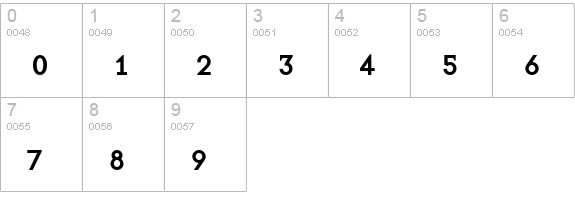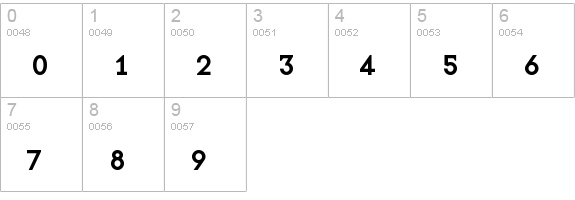
BaseTwelveSansSmallcaps Font Details
BaseTwelveSansSmallcaps font is a sleek and modern typeface that combines the elegance of small caps with a minimalist design. Its clean lines and rounded edges give it a friendly and approachable feel, making it perfect for a wide range of design projects. This font is versatile and can be used for both headings and body text, adding a touch of sophistication to any layout. Best of all, BaseTwelveSansSmallcaps font is available for free download at FontsMarket.com. Whether you're working on a professional project or simply looking to enhance your personal designs, this font is a fantastic choice that won't cost you a thing. Don't miss out on the opportunity to add this stylish and versatile typeface to your font collection today!